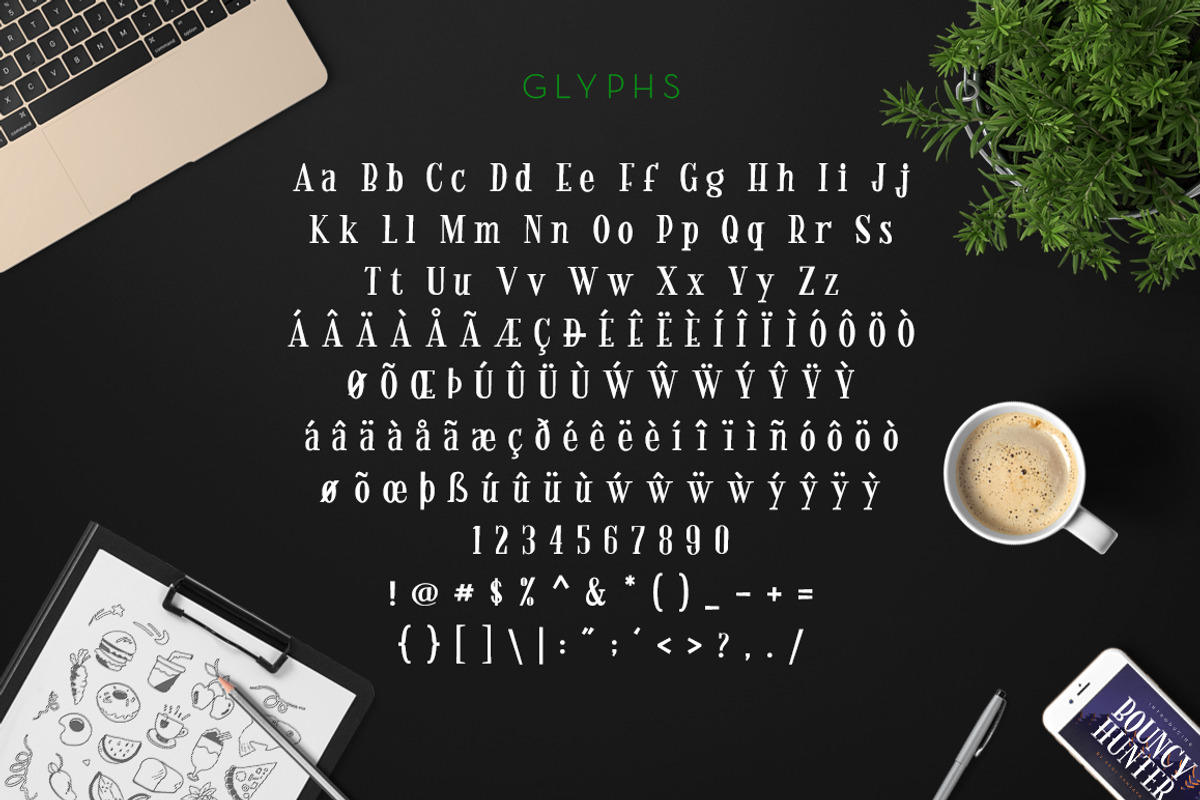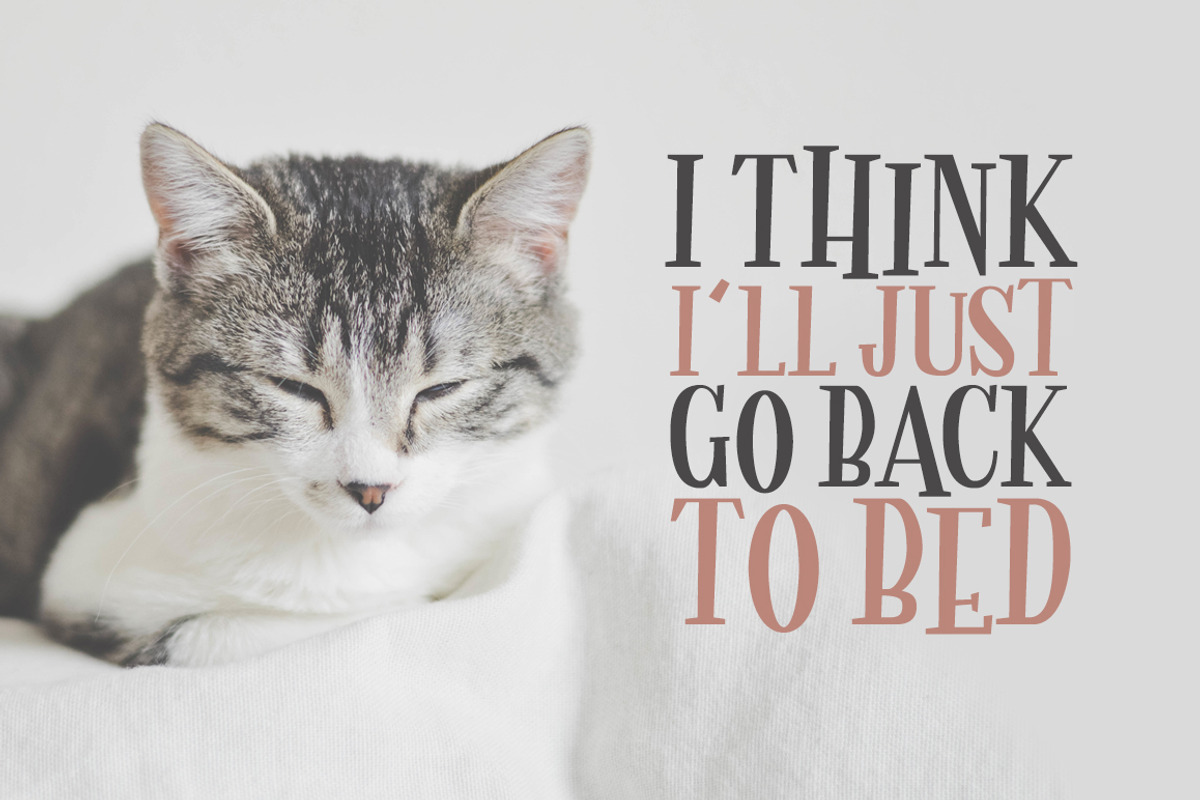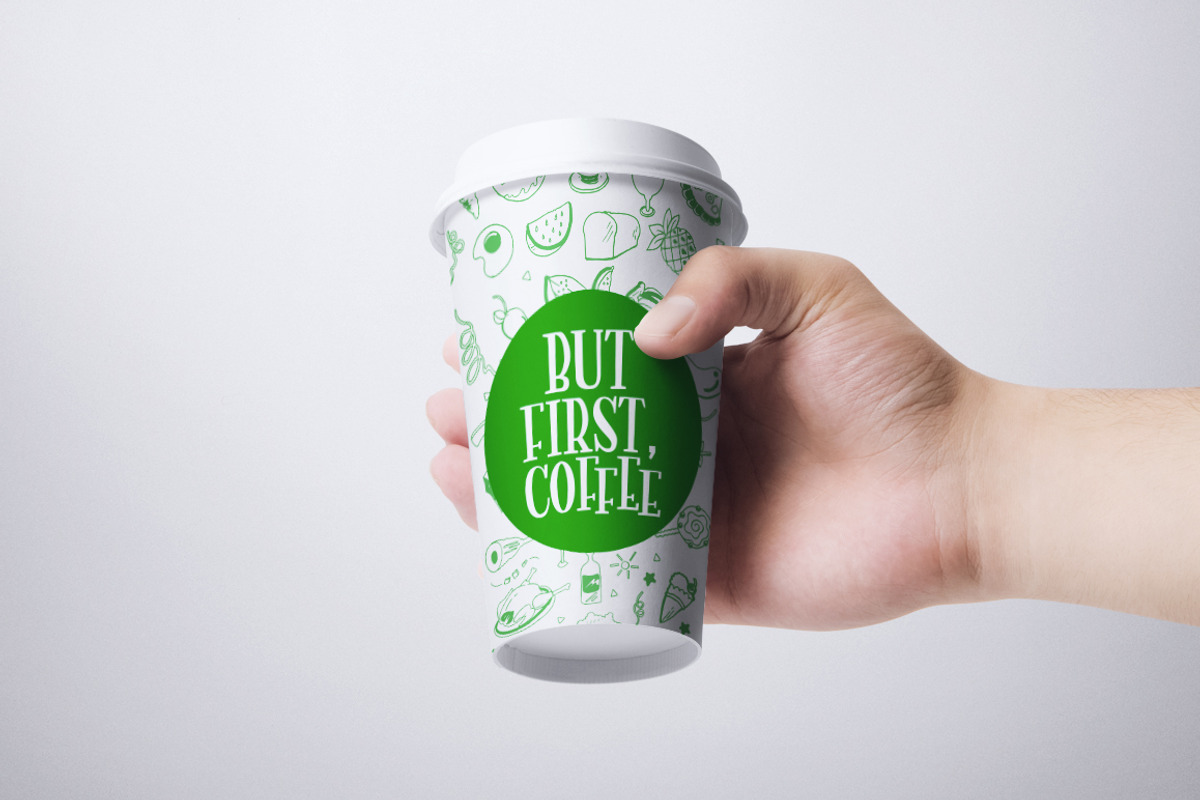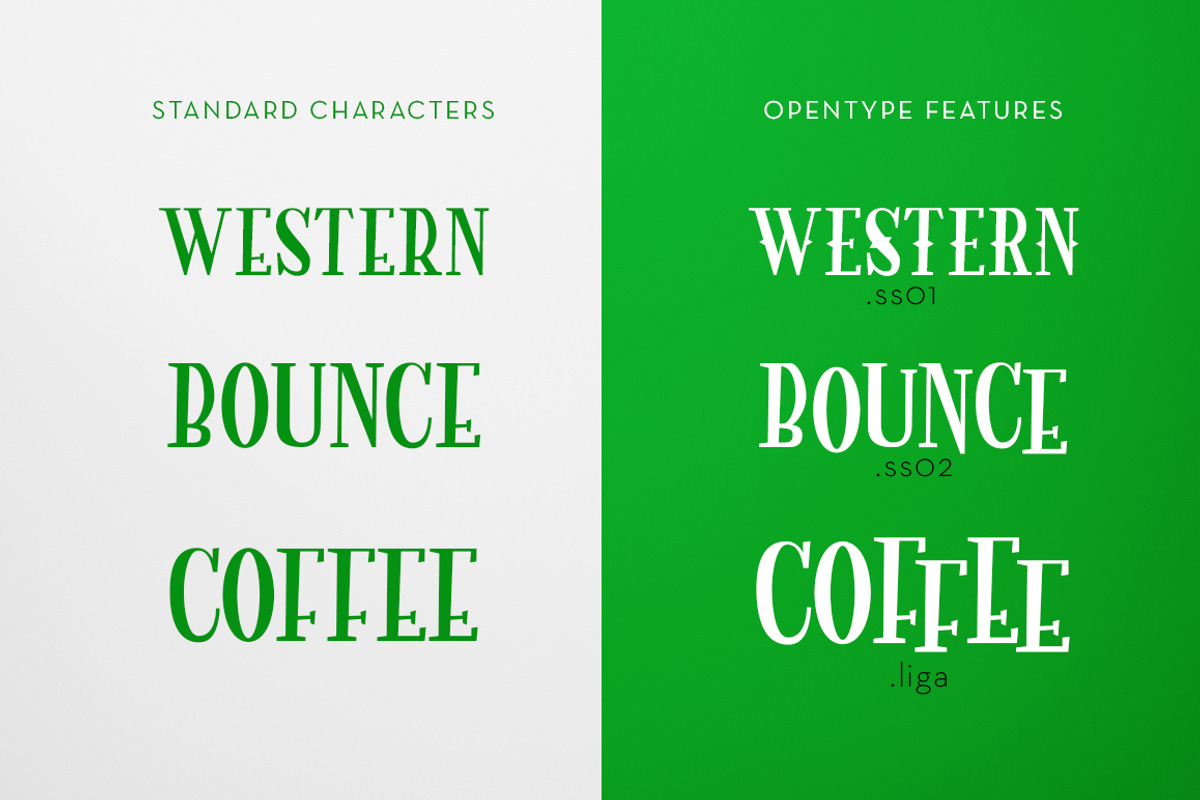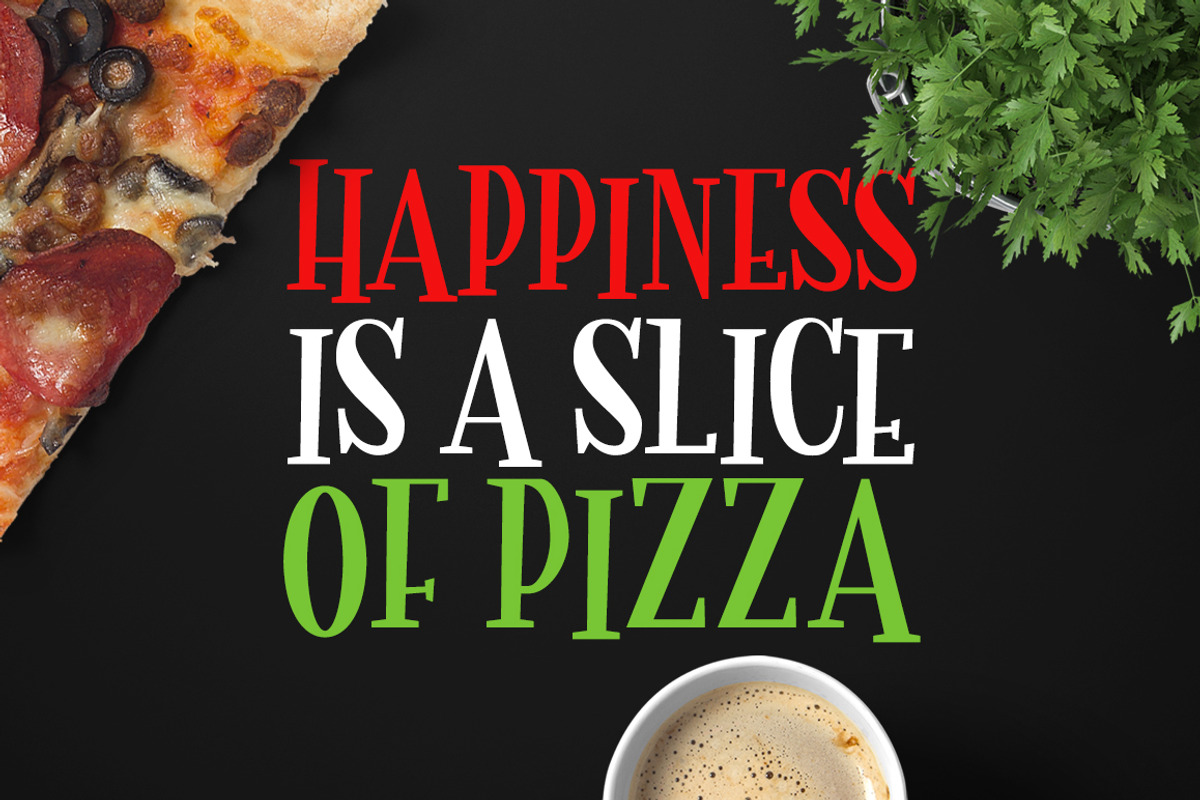
Bouncy Hunter
Bouncy Hunter by Font Bundles is a font selected for branding, posters, packaging, typography.
Why Bouncy Hunter is worth a look
Bouncy Hunter by Font Bundles fits naturally into Branding, posters, packaging, typography.